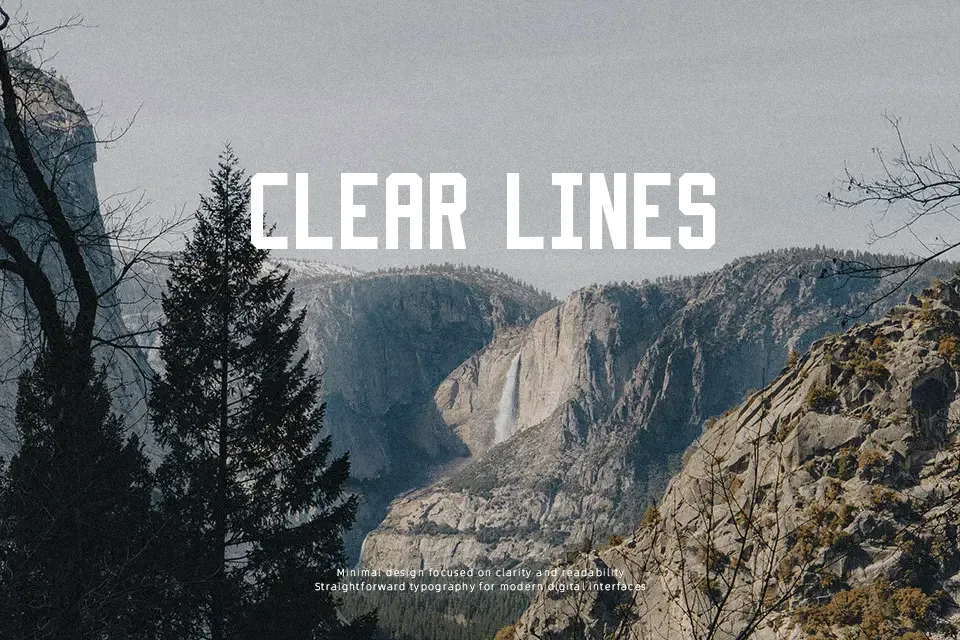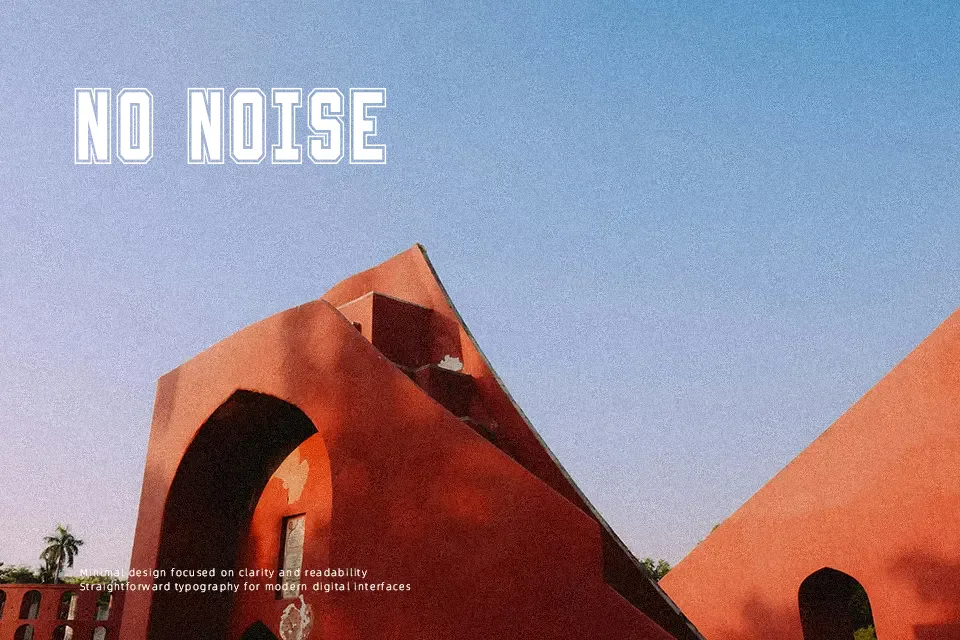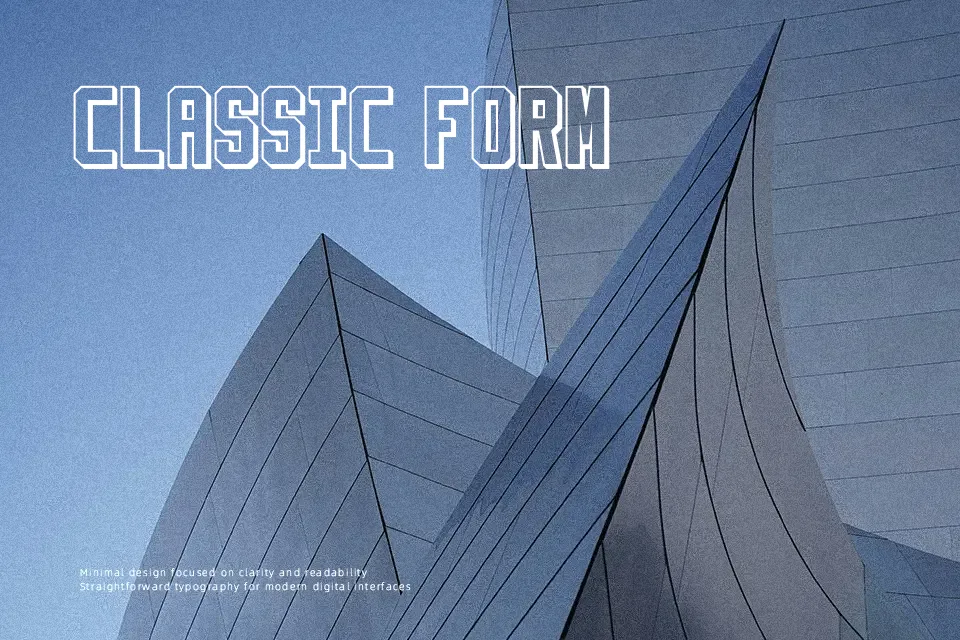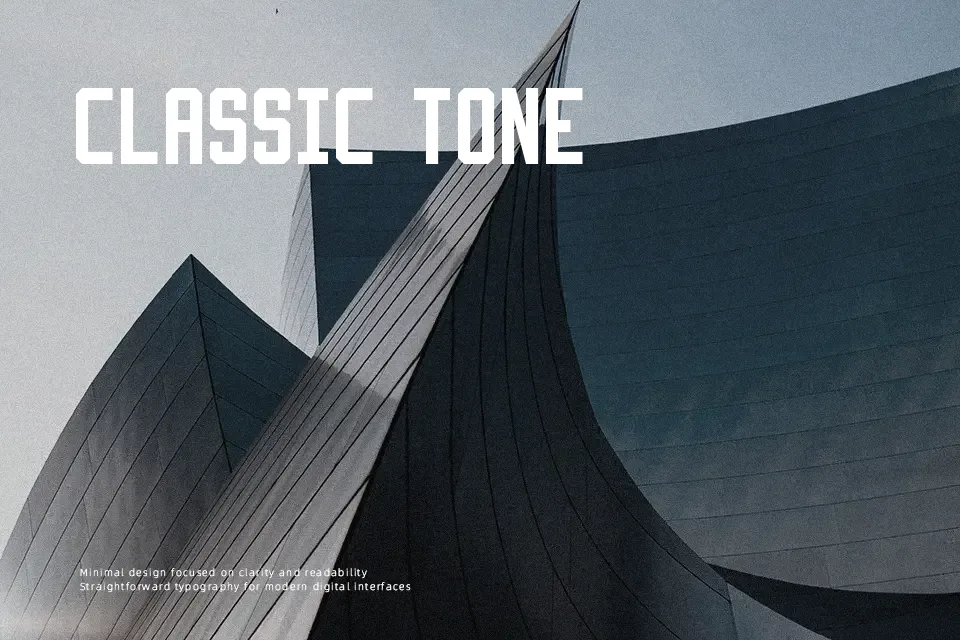
SlimFit Font
Designed by Studio Typo
SlimFit Font introduces a narrow, collegiate-inspired aesthetic defined by uniform stroke thickness and elongated vertical proportions. The tightly tracked character spacing creates dense typographic arrangements that command attention across large-scale formats such as athletic banners, varsity apparel, and dynamic promotional signage. Sturdy construction and flattened curves give the letterforms a disciplined, structural rhythm across all uppercase characters. However, the compressed horizontal width causes interior counters to collapse in smaller settings, making continuous paragraphs and dense editorial layouts difficult to read comfortably. When deployed as intended, the design provides an imposing display presence.
vintage athletic merchandise
collegiate poster headlines
sports event banners
fitness product packaging
continuous paragraph reading
mobile user interface body text
small legal disclaimers
dense editorial publications
Perfect for branding, headline, and packaging, with a bold and condensed style.